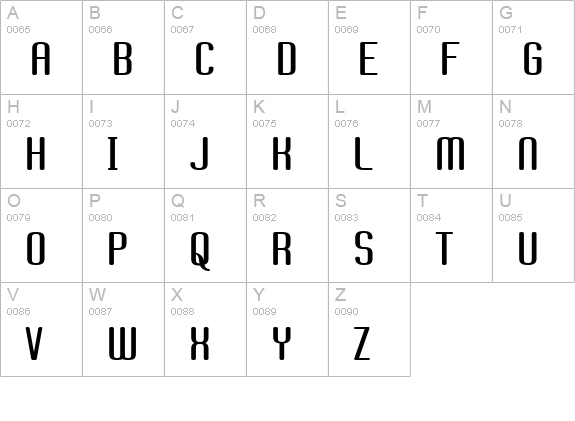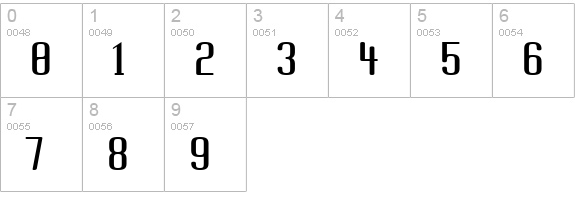
Brassiere Font Details
Introducing Brassiere font, a sleek and modern typeface that exudes elegance and sophistication. With its clean lines and stylish curves, Brassiere is perfect for adding a touch of class to any design project. Whether you're creating invitations, logos, or branding materials, this font will make your text stand out with its unique charm. What makes Brassiere font even more appealing is that it is available for free download at FontsMarket.com. Yes, you read that right - you can elevate your designs with this stunning font without having to spend a dime. So go ahead and give Brassiere font a try, and see how it can take your projects to the next level.